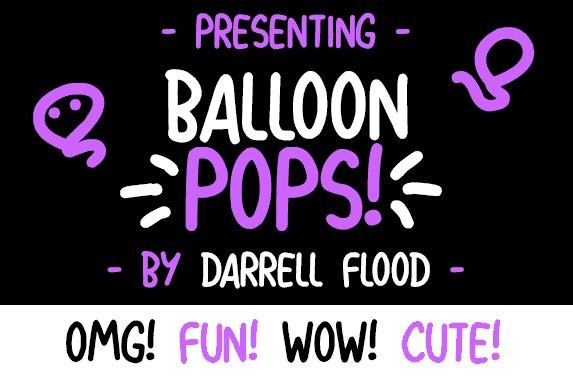
This excellent first-class textual style has come uniquely in the well-known form along with the open-kind highlights. Additionally, this regular style has contained 245 number of characters with a few international language guides.
Nowadays, now its become help you in meeting various designing procedures just due to its fundamental functions. Due to the fact it could make well pair with other sans serif font families.
And you can write the complete paragraph and content through it. Whilst you ought to need a few bold fonts for heading functions because it’s thin like frozen font and animal letter typeface and it’s going to not healthy within the headings.
From that factor onward, you’ll have the choice to utilize this most refreshing fashion to make requirements include movement photograph blurbs, object bundling, marking, authentic cards, birthday or welcome card structures, and numerous different comparable things.
So, in every remember that particular font may be a pleasant desire ever. It may use for small duties and business responsibilities additionally. Because they have sufficient glyphs that work in numerous portions.